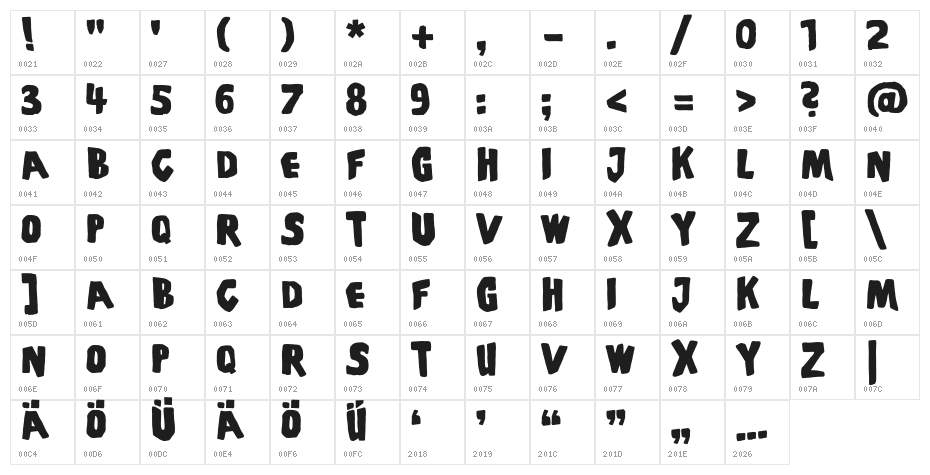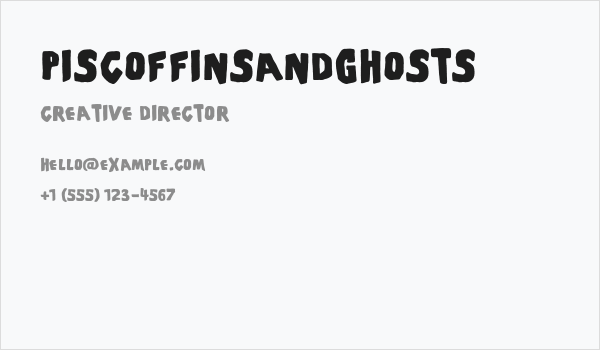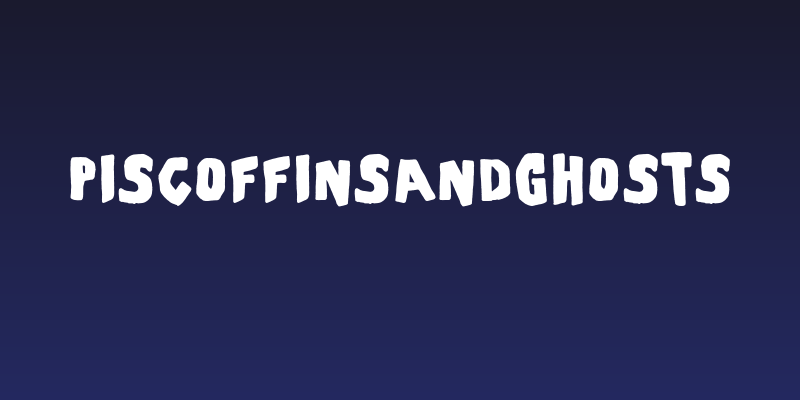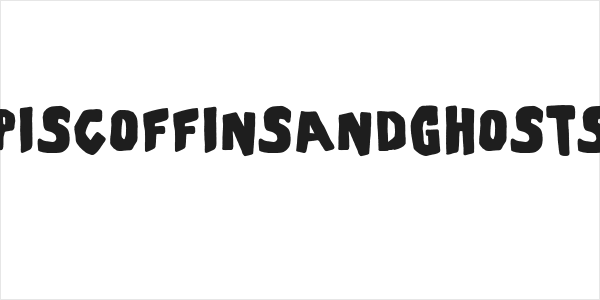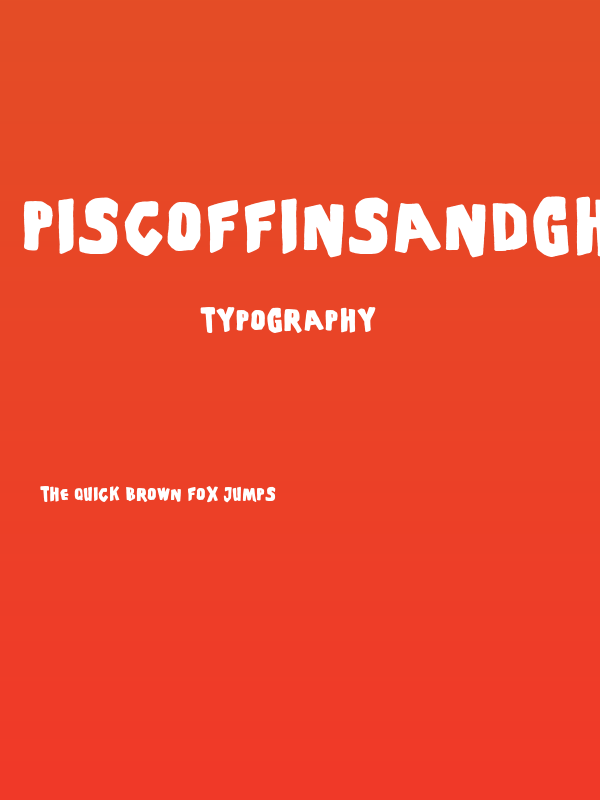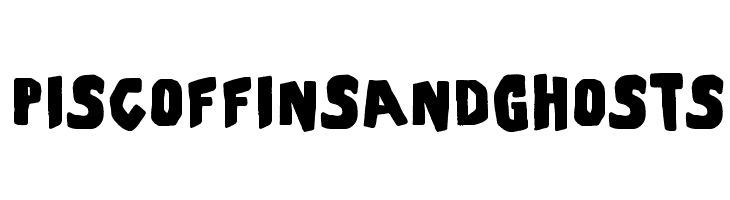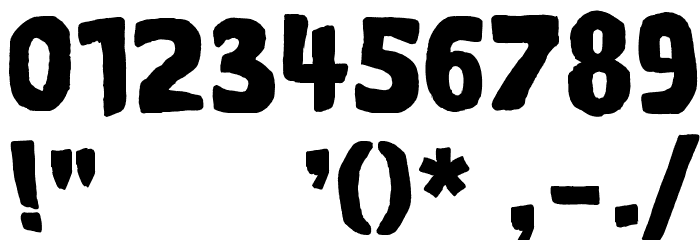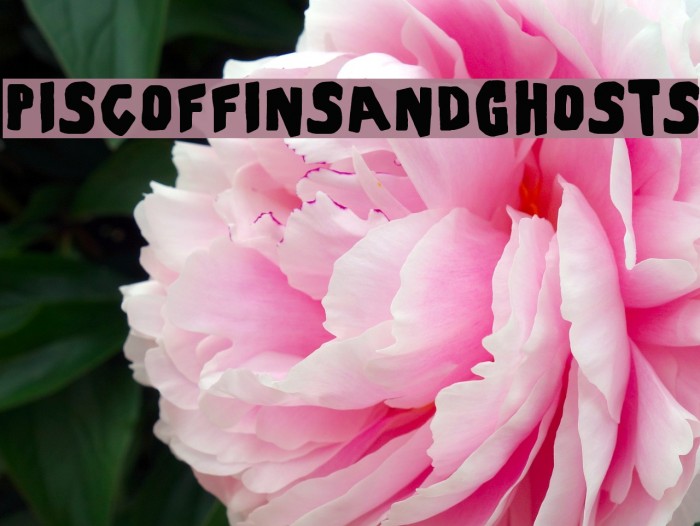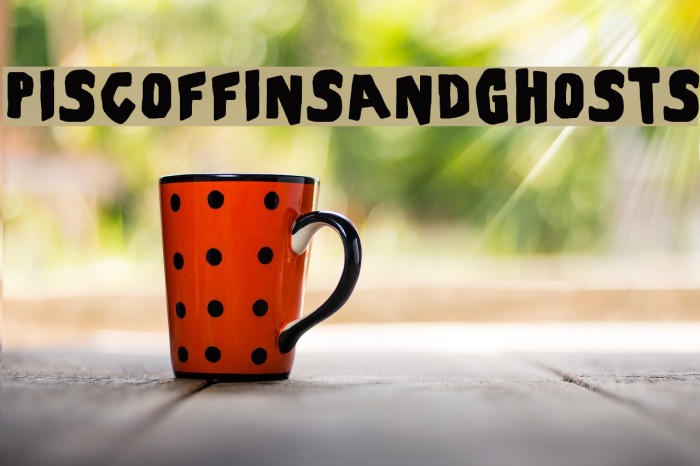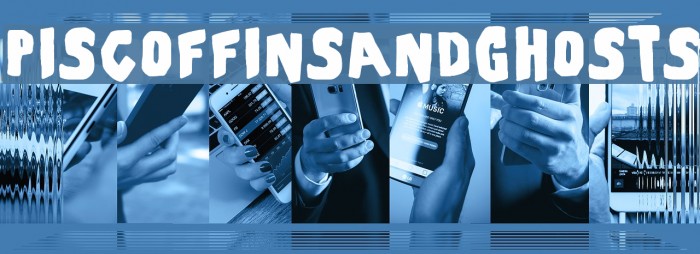
PiSCoffinsandGhosts Font
PiSCoffinsandGhosts Description
This font features a bold, hand-drawn style with a playful and slightly spooky aesthetic. The characters are uneven and irregular, giving them a unique, organic feel. The uppercase and lowercase letters maintain a consistent thickness, contributing to a cohesive look. The numbers and special characters follow the same design principles, ensuring uniformity across the font. The overall appearance is reminiscent of a Halloween or horror theme, making it ideal for projects that require a touch of whimsy or eeriness. The font's boldness ensures it stands out, while the irregularities add character and charm.
| Proposed Projects | Ideal for Halloween-themed designs, children's book covers, posters, and creative branding projects. |